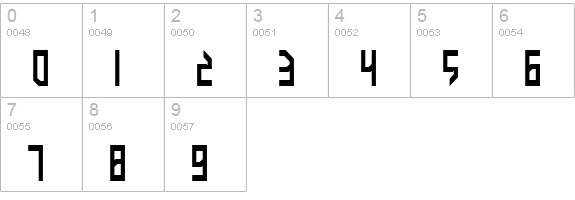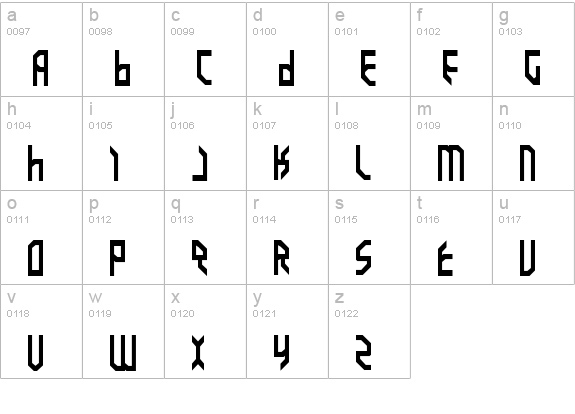
Valkyrie font is a stunning display typeface that embodies elegance and sophistication. With its sleek lines and modern aesthetic, this font is perfect for creating eye-catching designs that demand attention. Whether you're designing a logo, website, or print materials, Valkyrie font will add a touch of class to your projects. Best of all, Valkyrie font is completely free to download at FontsMarket.com. This means you can access this high-quality font without breaking the bank, making it ideal for designers on a budget. Don't miss out on the opportunity to elevate your designs with the exquisite Valkyrie font - download it today and see the difference it can make!